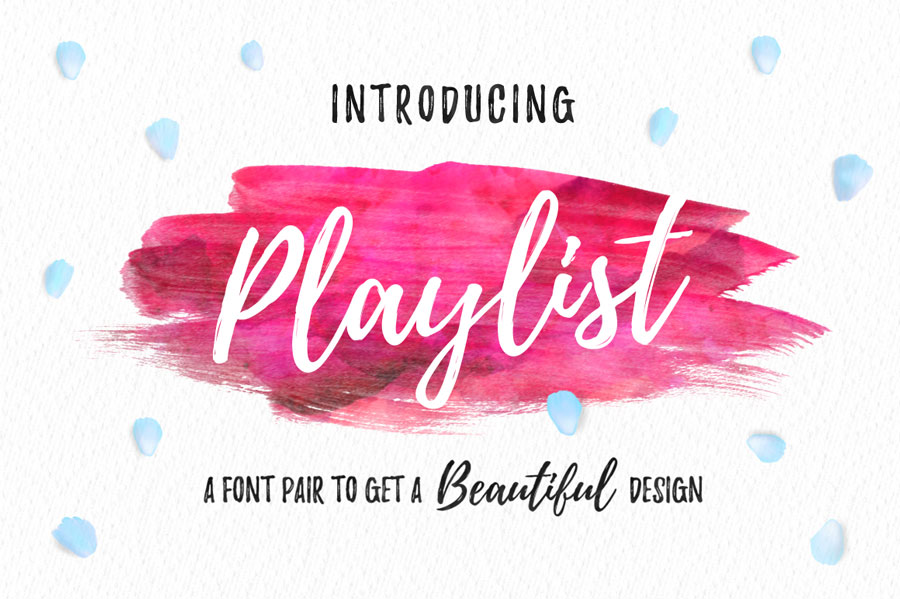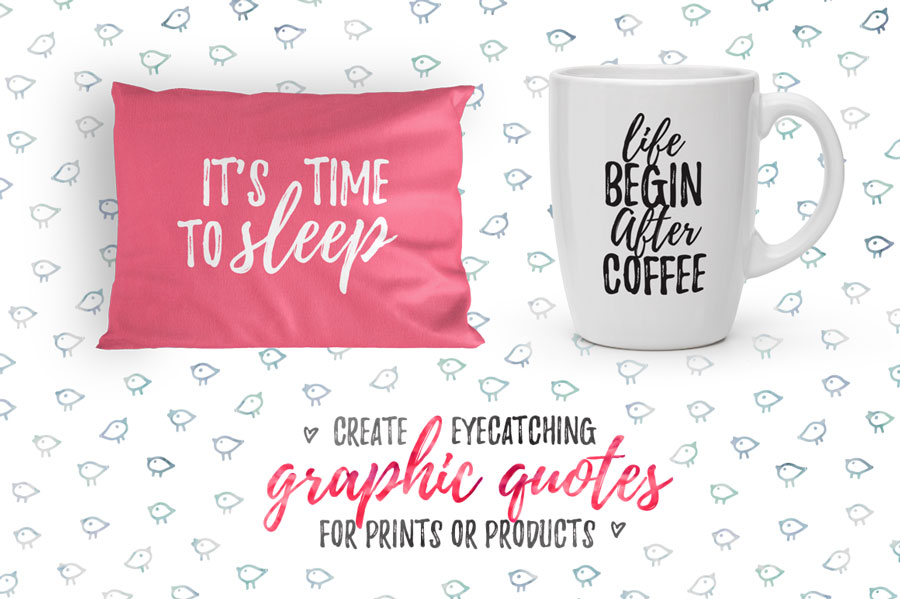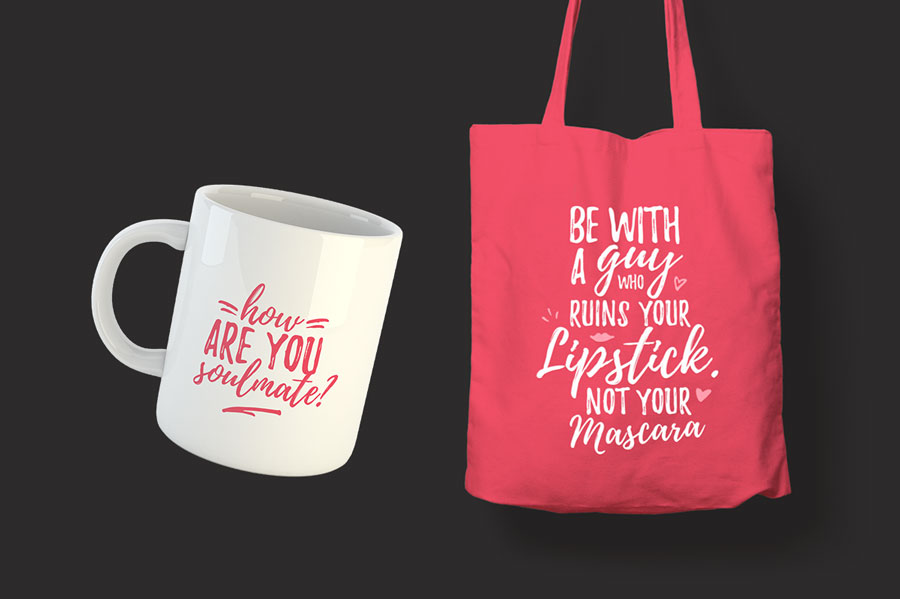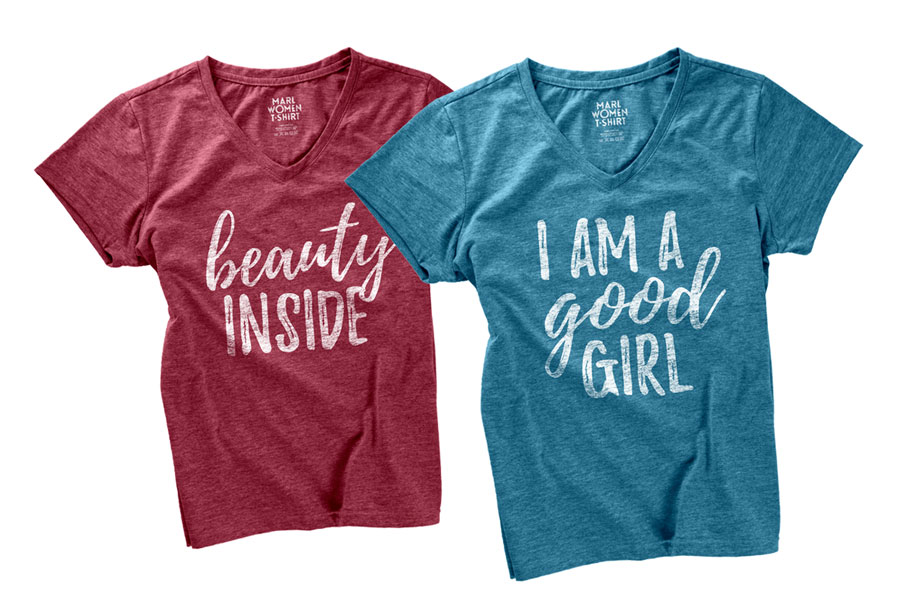
Playlist Free Font
Playlist commercial use font is a perfectly imperfect handdrawn font with dry brush styles. Playlist Free Font contains 3 styles: Script, Caps, and Ornament, which you can combine to create a beautiful designs.